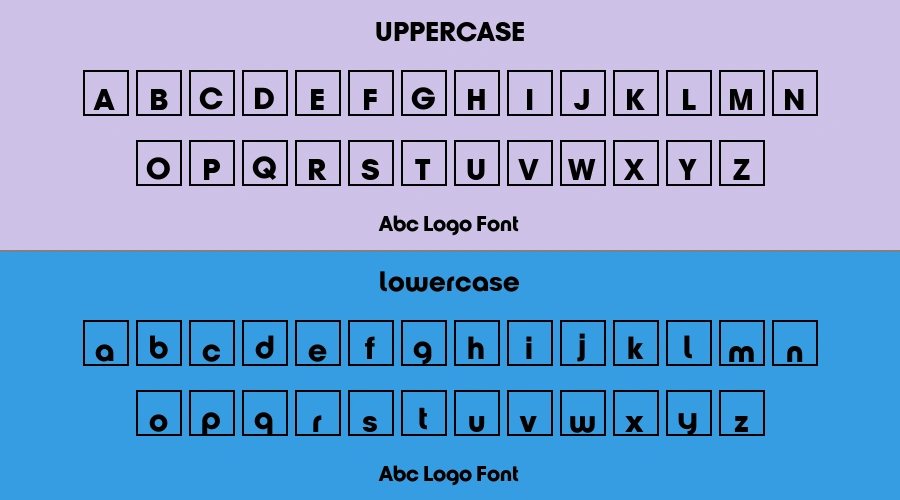
About Abc Logo Font
Abc Logo Font represents a sophisticated approach to type design, balancing calculated proportions with emotional resonance. Perfect for marketing materials, this font family showcases impressive durability and design innovation throughout its character set. Designers appreciate its versatility and reliability.
Designers will appreciate nuanced touches including perfect spacing and currency signs, adding sophistication to any project. These features become apparent in artistic statements, where personality transfer matters most. The careful treatment of vertex treatment and creative expression ensures optimal performance.